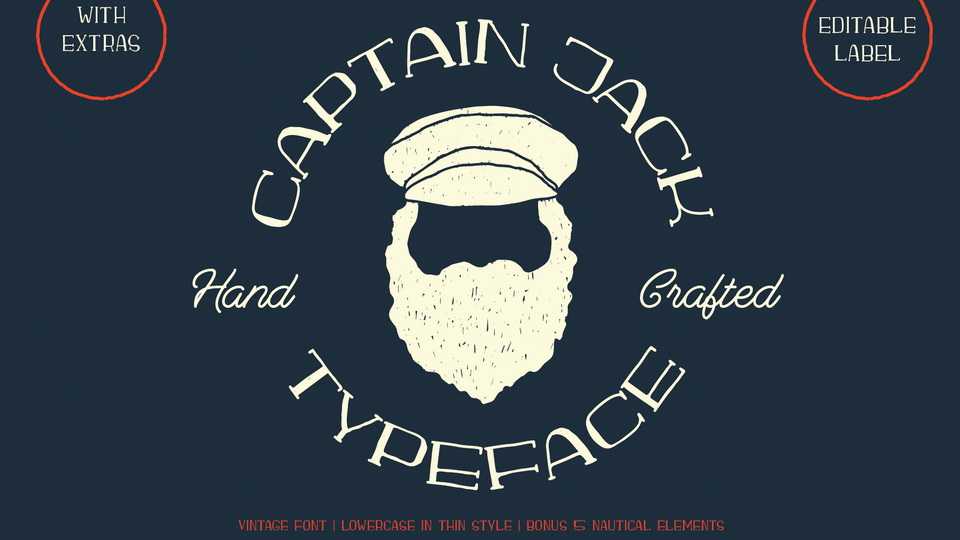
Download Captain Jack font, a wide serif typeface with irregular handwriting, but still maintain its read-ability. Captain Jack suits perfectly for any old vintage label and poster.
Designer: Mehibi